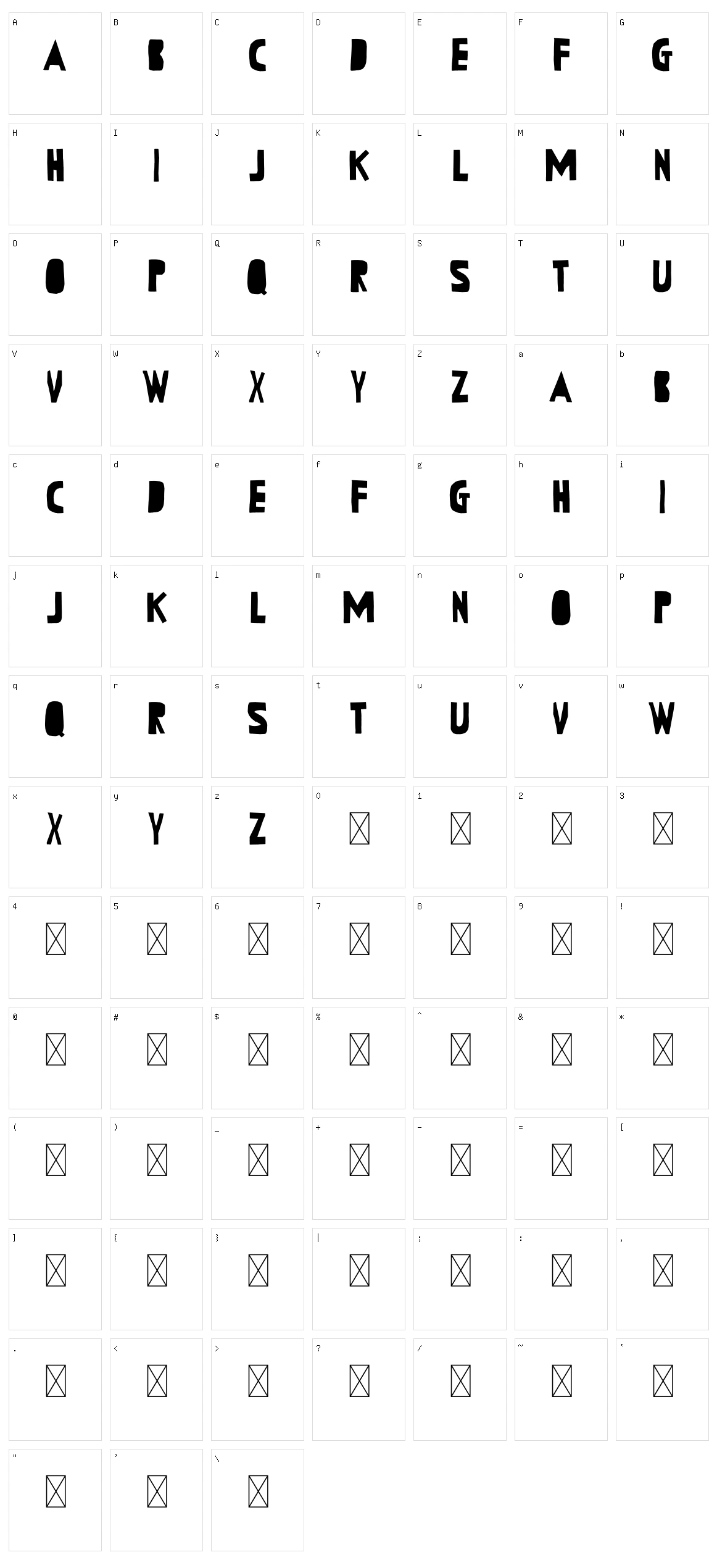
The free font Typephace is carefully designed by Pirated Material, showcasing a thoughtful balance of creativity and usability and falls under the Cartoon font style. When you download the ZIP file, it contains only 103.22 KB of font files, making it lightweight and quick to download. Please review the license details below to understand permitted usage and distribution rights. If license information is not available, we recommend using this font for personal projects only or contacting the author directly for commercial usage permissions.